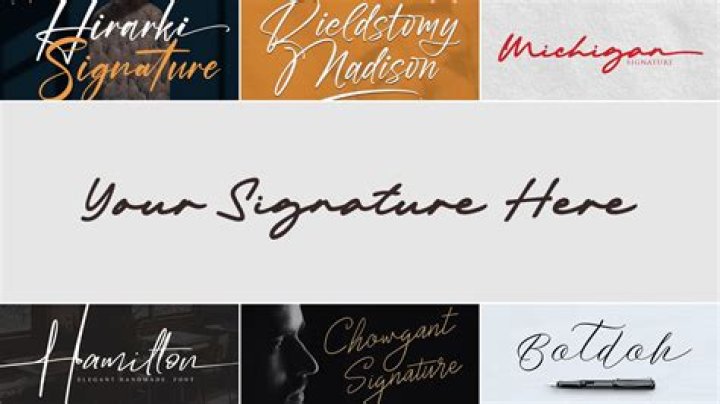
Best fonts for email signatures
- Arial.
- Verdana.
- Georgia.
- Tahoma.
- Courier.
- Times New Roman.
- Trebuchet.
- Palatino.
What font looks like a handwritten signature?
Signatura. If you are looking for a signature font that really looks handwritten, Signatura is the one! It’s not only free for personal & commercial use but thanks to its mono-weight strokes, it looks like written with a ballpoint pen.
What is a good handwritten font?
20 Best and Beautiful Free Handwriting Fonts in 2019
- Little Day Font.
- Herbarium font.
- Selima Script.
- Seascape script.
- Balqis Font.
- Beattingvile Beautiful Script Font.
- Basfar Handwriting Font.
What font is closest to cursive?
Some examples are:
- Segoe Script.
- Lucida Handwriting.
- Edwardian Script.
- Kunstler Script.
What are the best handwriting fonts?
The Best Free Handwriting Fonts to Download for 2021 1. Dancing Script 2. Gloria Hallelujah 3. Merienda 4. Great Vibes 5. Journal 6. Courgette 7. Rancho 8. Caveat 9. Give You Glory 10. Euphoria Script
What font looks like handwriting?
The program has several fonts that resemble cursive handwriting, including Monotype Corsiva, Bradley Hand ITC and Freestyle Script.